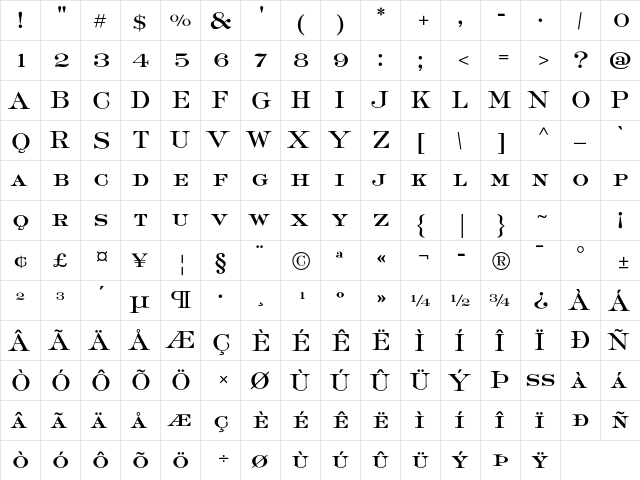
Medium Roman Std Regular
Design Context for Medium Roman Std Typeface
Medium Roman Std takes a measured approach to typography — its balanced proportions and neutral character make it a reliable workhorse for both digital and print work.